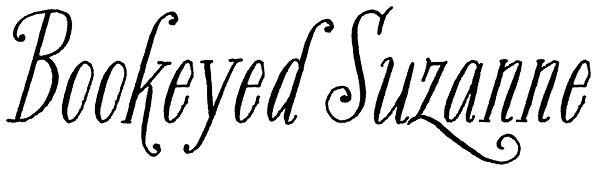
Bookeyed Suzanne
Our darling Suzanne, she’s personable and flexible with a large number of OpenType accessible alternative glyphs & ligatures to customize her appearance. A modern girl with vintage charms, she’s equally comfortable placed as center of attention or...